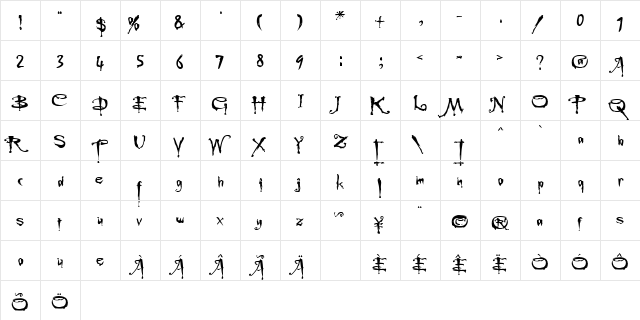
Buffied Regular Font Preview
Buffied Regular
Buffied Regular Font Details
Design Context for Buffied Typeface
Buffied is a composed and adaptable typeface that performs quietly and consistently across a wide range of design contexts.
Pro Tip: Use Buffied in both headline and body roles to test its range before committing to a single application.